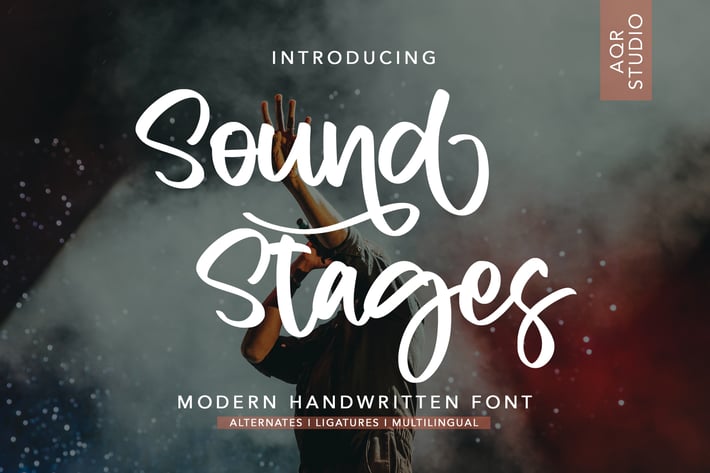
SoundStages - Modern Handwritten Font
SoundStages - Modern Handwritten Font contains a lowercase, uppercase, symbol, and also supports multi-language. There’s a lot of ligature in this font. SoundStages - Modern Handwritten Font also comes with ligatures, stylistic alternates and many more.
this font suitable for fashion, branding, catalog and other design that you want.